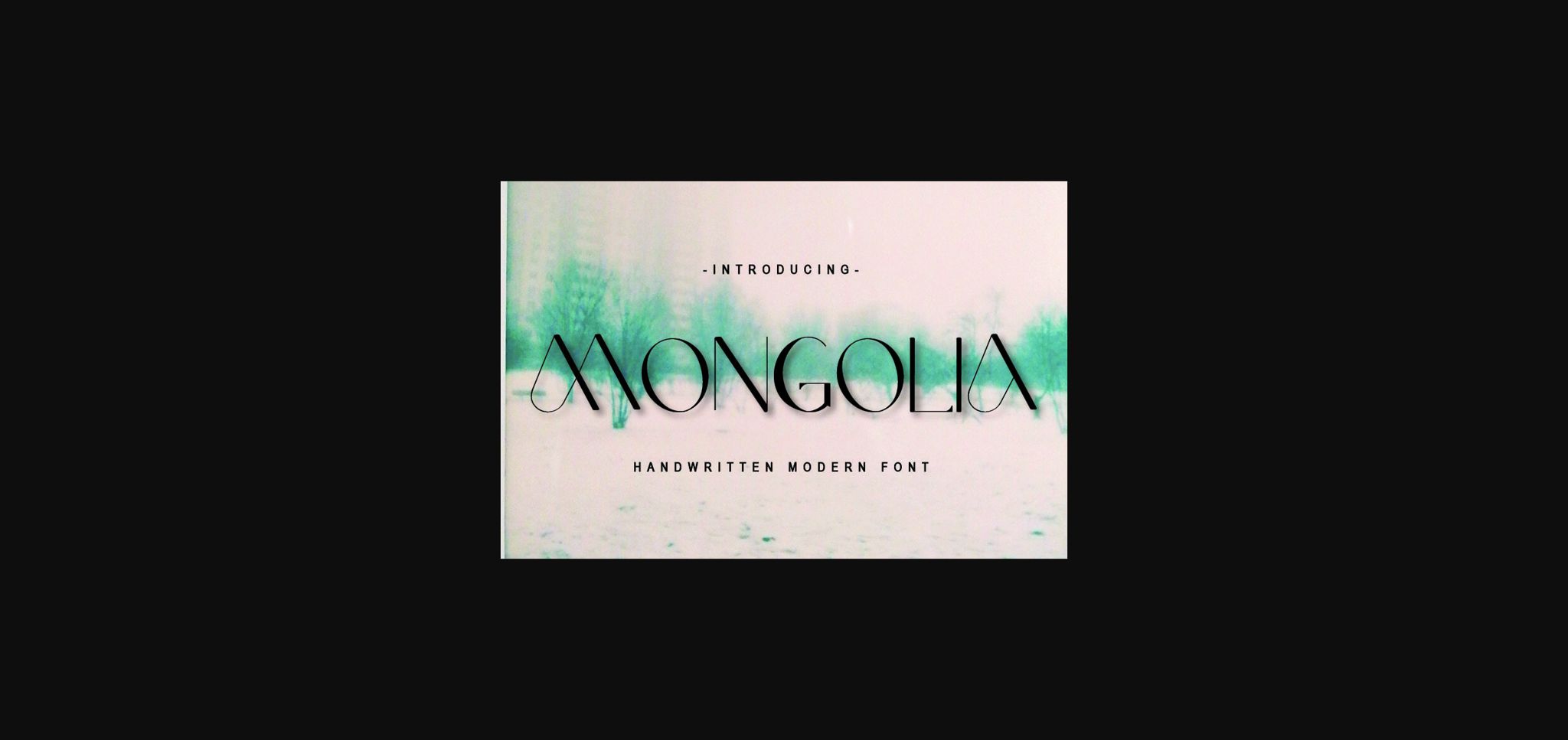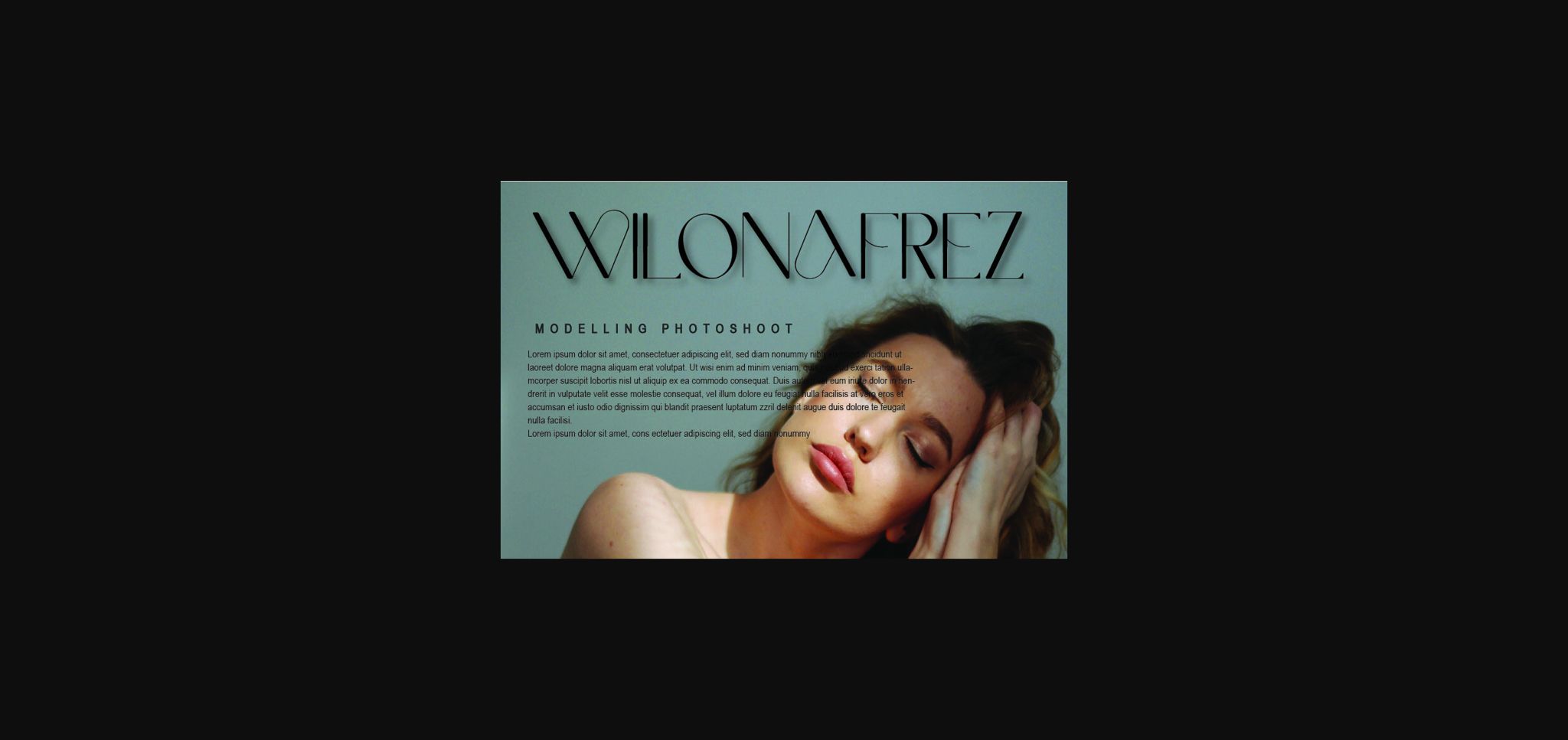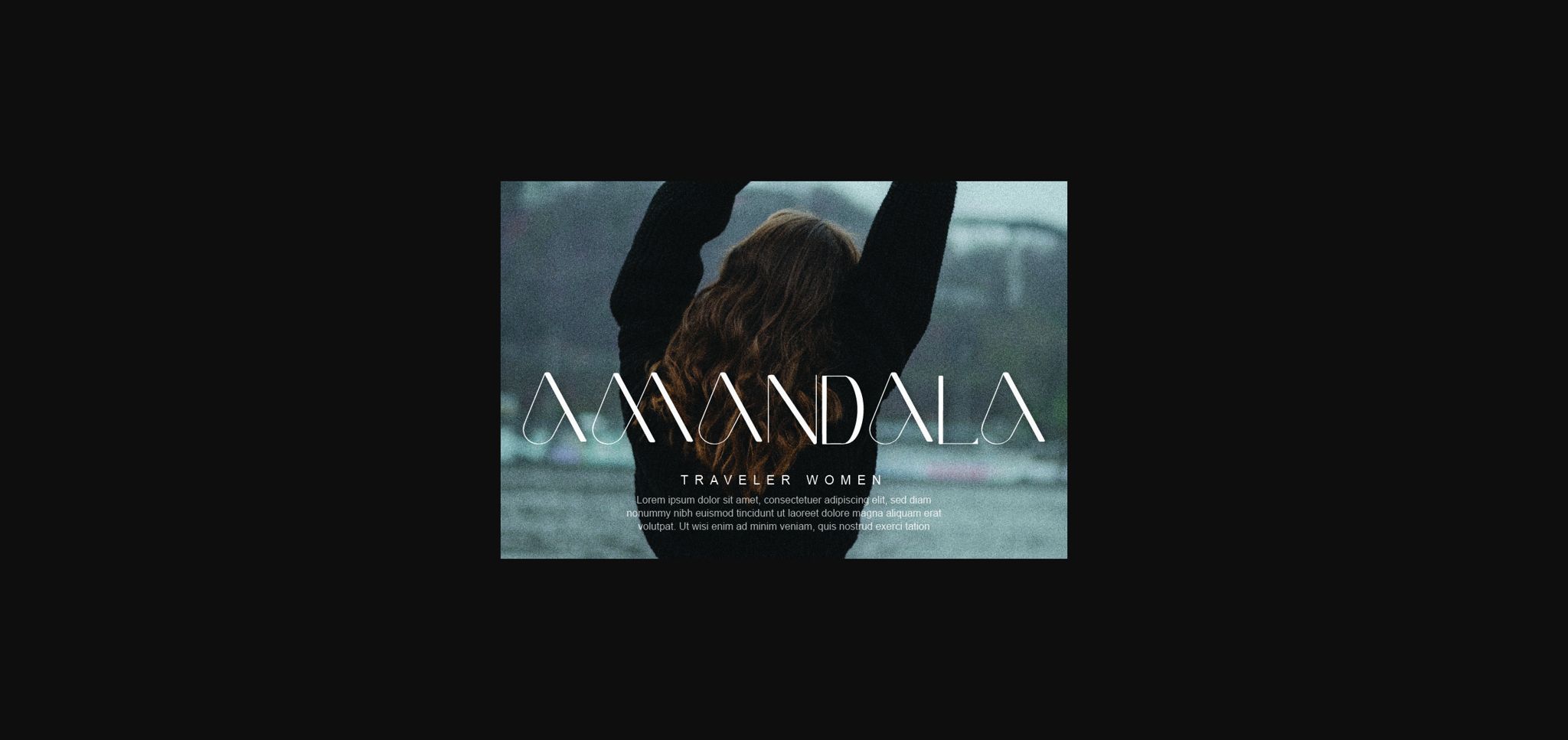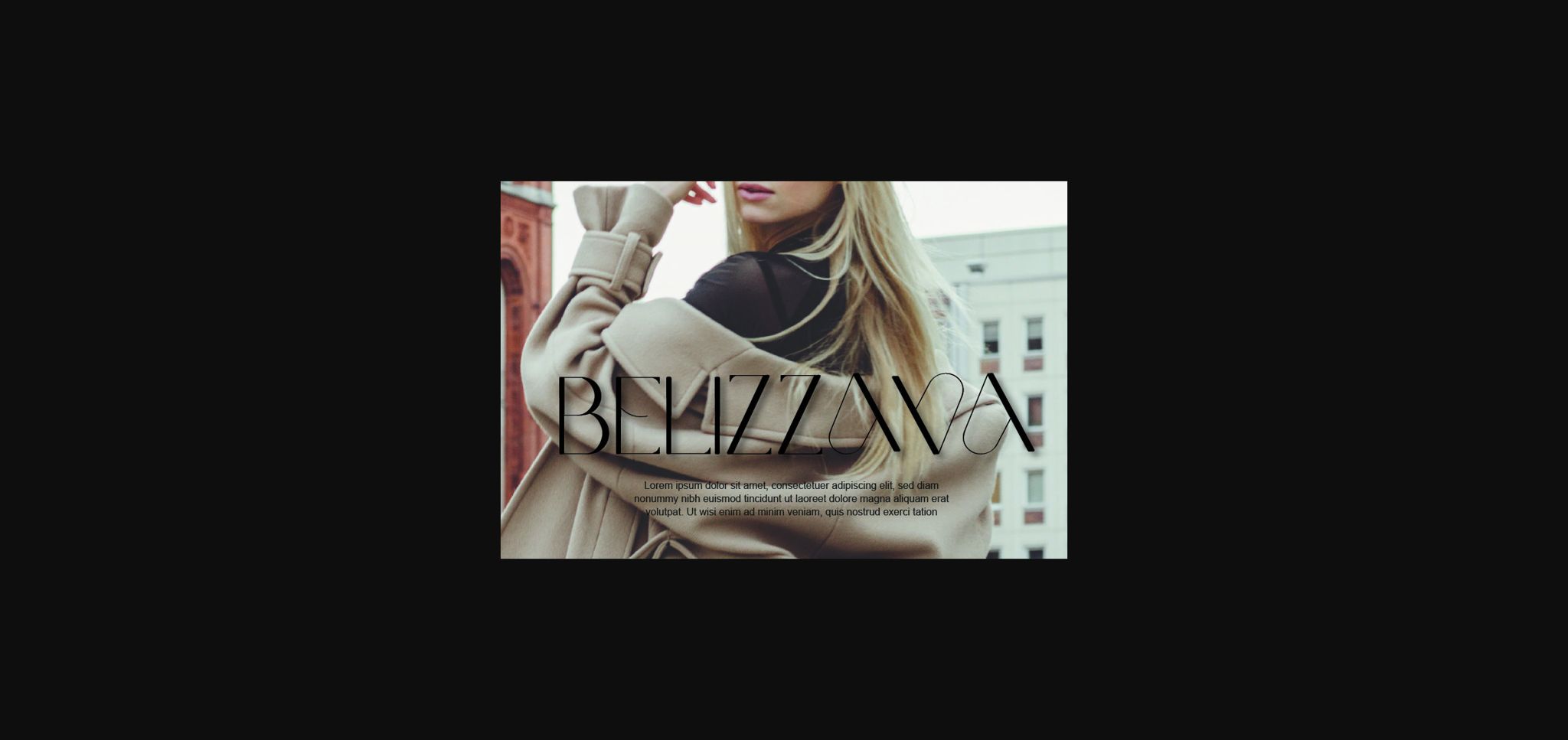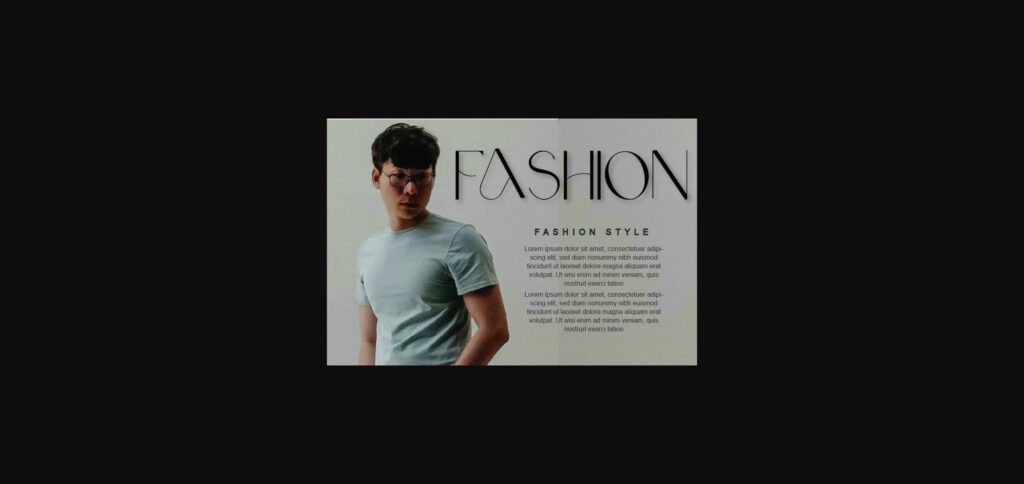
Mongolia is an elegant thin line font that looks modern, futuristic and looks luxurious. Add this font to your creative ideas, and see how it stands out and looks perfect for your projects!Use this font to see its beauty!